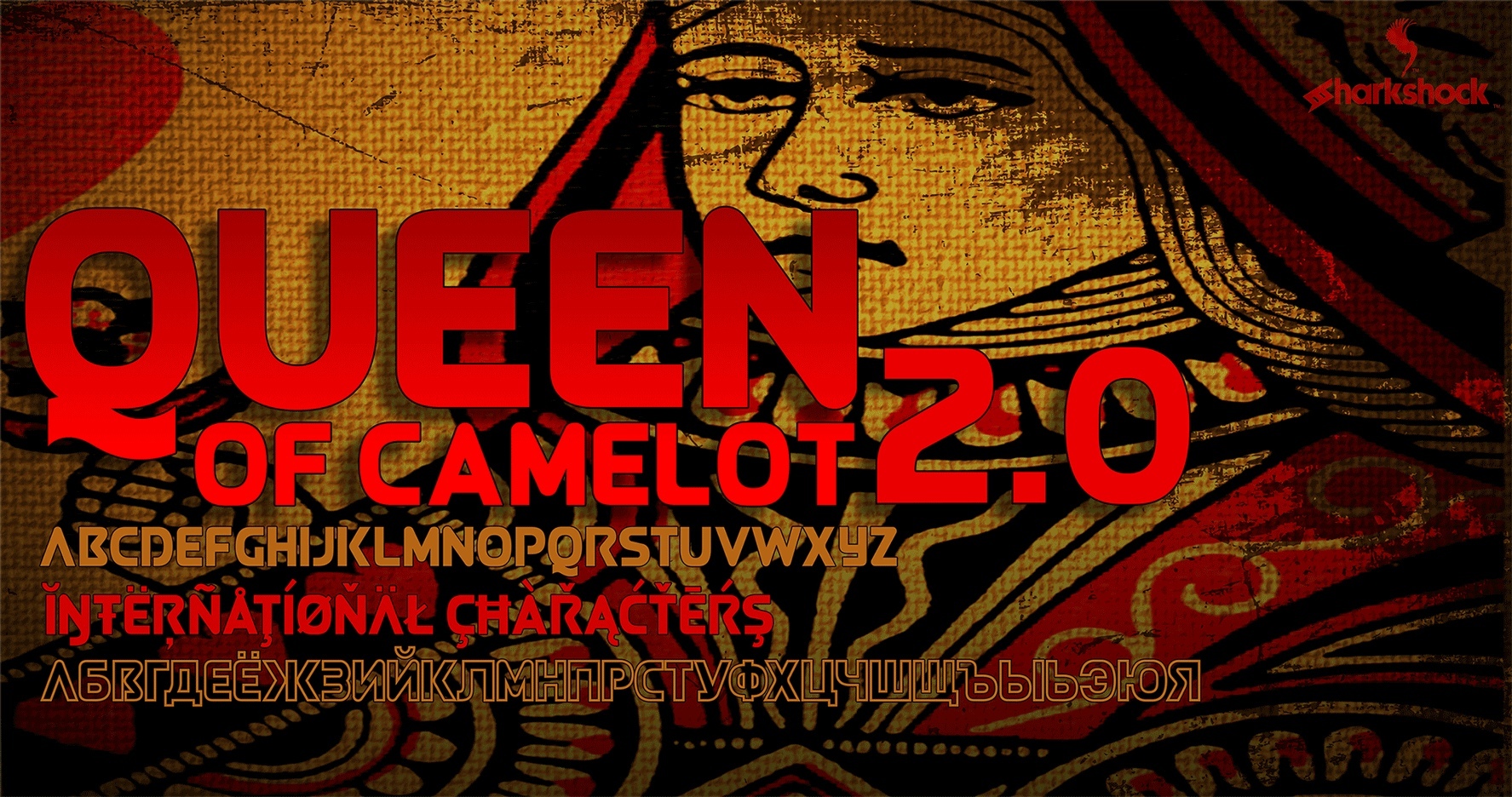
Queen of Camelot Font
This Queen of Camelot Font is perfect for medieval fantasy branding, royal castle designs, Arthurian legend publications, medieval wedding invitations, fantasy gaming graphics, historical reenactment materials, royal court presentations, knightly order communications, medieval feast promotions, and majestic heraldic applications.
What makes this Queen of Camelot Font exciting is its regal medieval majesty that captures the legendary grandeur and noble elegance of Arthurian royal courts. The font features majestic letterforms with royal proportions that convey sovereign authority, medieval honor, and legendary nobility. Its queenly character and Camelot authenticity make it ideal for brands seeking to communicate royal excellence, medieval heritage, and legendary sophistication in fantasy and historical markets.
The Queen of Camelot Font family includes light, regular, medium, and bold weights with royal alternates, medieval variants, and Arthurian flourishes. This comprehensive regal font family provides designers with majestic typographic tools to create noble compositions while maintaining the royal character essential for medieval fantasy and royal heritage brand communications.
Fantasy entertainment companies and medieval venues consistently choose Queen of Camelot Font Free Download for projects requiring authentic royal appeal and Arthurian sophistication. This font's distinctive queenly character perfectly captures the legendary nobility and medieval grandeur that resonate with audiences who appreciate Arthurian legends, medieval fantasy, and brands that embody royal excellence and knightly honor.
The sovereign construction of Queen of Camelot Font showcases majestically crafted letterforms with royal proportions that ensure exceptional nobility across all medieval applications. Its regal appearance and Camelot authenticity create memorable impressions while maintaining the readability necessary for effective royal communication and medieval fantasy materials.
Professional designers appreciate how Queen of Camelot Font brings immediate royal authority and legendary presence to brand communications. The font's queenly nature allows organizations to communicate sovereign excellence and medieval nobility while maintaining the professional quality necessary for effective positioning in fantasy entertainment and historical heritage markets.
The legendary appeal of Queen of Camelot Font makes it particularly effective for brands emphasizing royal heritage, medieval nobility, and Arthurian excellence. Its majestic character resonates strongly with audiences who appreciate medieval legends, royal traditions, and brands that represent the pinnacle of sovereign grace and legendary medieval achievement.
Whether developing branding for medieval entertainment venues or creating materials for Arthurian fantasy productions, Queen of Camelot Font Free Download provides the royal typographic foundation that legendary brands need to communicate their sovereign authority, medieval nobility, and the majestic excellence that defines Arthurian legend and royal medieval heritage achievement.